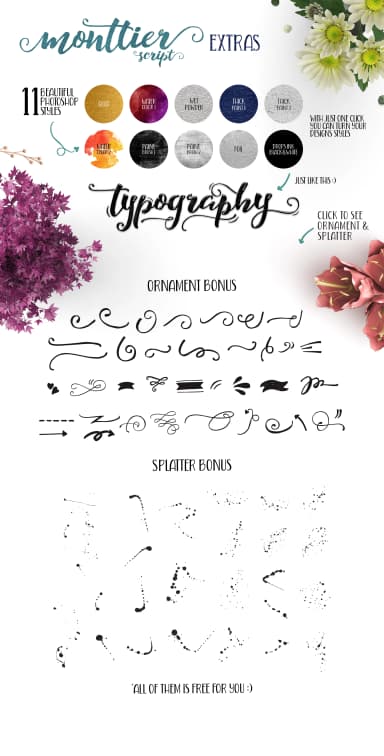
Monttier Font by Heybing Supply Co. is a hand-painted script crafted to pair seamlessly with the Quinte Typeface, a clean and minimal sans serif. Together, these fonts create a versatile typographic system that balances organic character with contemporary clarity. The script's handwritten aesthetic features natural stroke variations and subtle irregularities that bring authenticity to designs while maintaining excellent legibility across digital and print mediums.
The dual-font combination excels in wedding invitation suites, where the flowing script commands attention for main text while Quinte handles guest details and RSVPs. The pairing also works beautifully for boutique packaging labels, greeting card collections, and personal brand stationery. Small business owners, independent designers, and creative entrepreneurs find particular value in this system for building cohesive visual identities that feel both approachable and professional. Event flyers, DIY craft projects, and artisan product labels all benefit from the flexibility of having script and sans serif options that complement rather than compete.
The hand-painted character of Monttier brings warmth and personality to layouts without sacrificing functionality or readability. Whether you're creating sophisticated wedding materials, developing a brand voice for your small business, or designing eye-catching product packaging, this font duo provides the typographic foundation you need. Browse the full collection on Creative Fabrica to add Monttier Font to your design toolkit.
Monttier Font is a script font that shines as a display or heading face. Pair it with a clean sans-serif or serif font for body text — the contrast creates a clear hierarchy while the two styles stay balanced and easy to read.